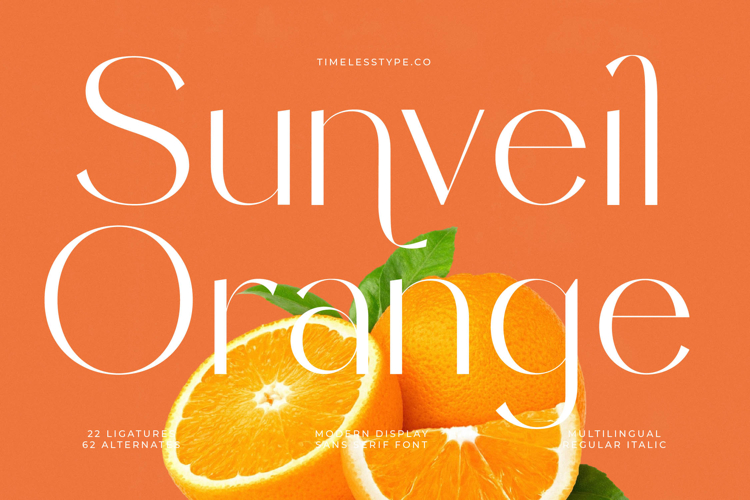
Sunveil Orange - Modern Display Sans Serif Font
Elevate your designs with unparalleled elegance and contemporary flair. Introducing Sunveil Orange - Modern Display Sans Serif Font, a truly captivating typeface that blends the clean lines of a sans serif with the sophisticated distinction of a high-contrast display font. Its unique design features graceful curves and delicate strokes, ensuring every word commands attention and exudes a sense of refined luxury. This font is crafted for visual impact, making it an indispensable asset for creative professionals.
Designed for global impact and flawless readability, Sunveil Orange - Modern Display Sans Serif Font offers exceptional versatility. With its extensive multilingual support, Sunveil Orange - Modern Display Sans Serif Font adapts seamlessly across global markets, making it incredibly versatile for international projects. Further enhancing its creative potential, the font includes 22 ligatures and 62 alternates, providing abundant stylistic choices to customize and perfect your typography.